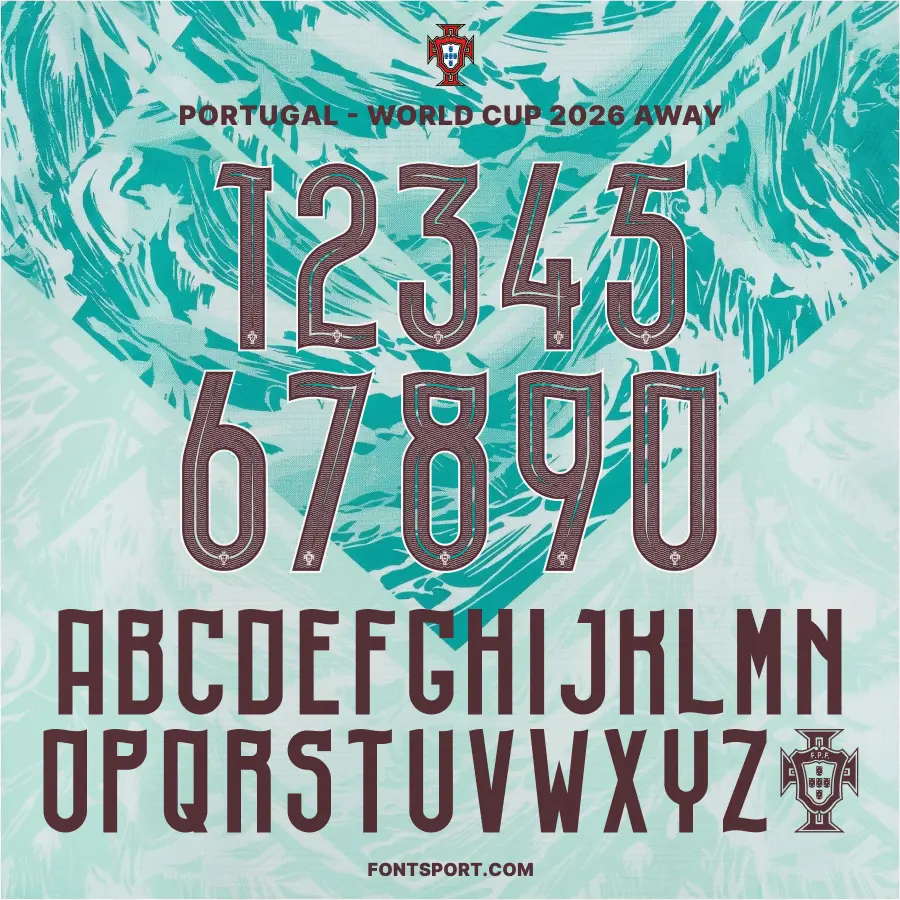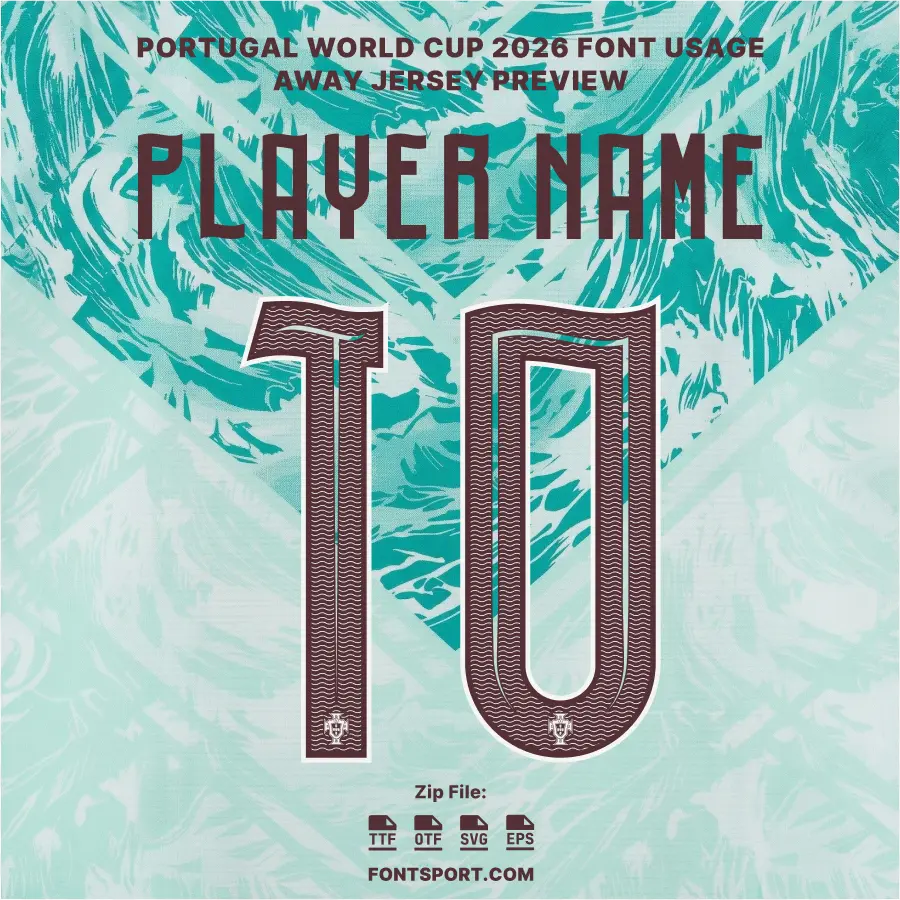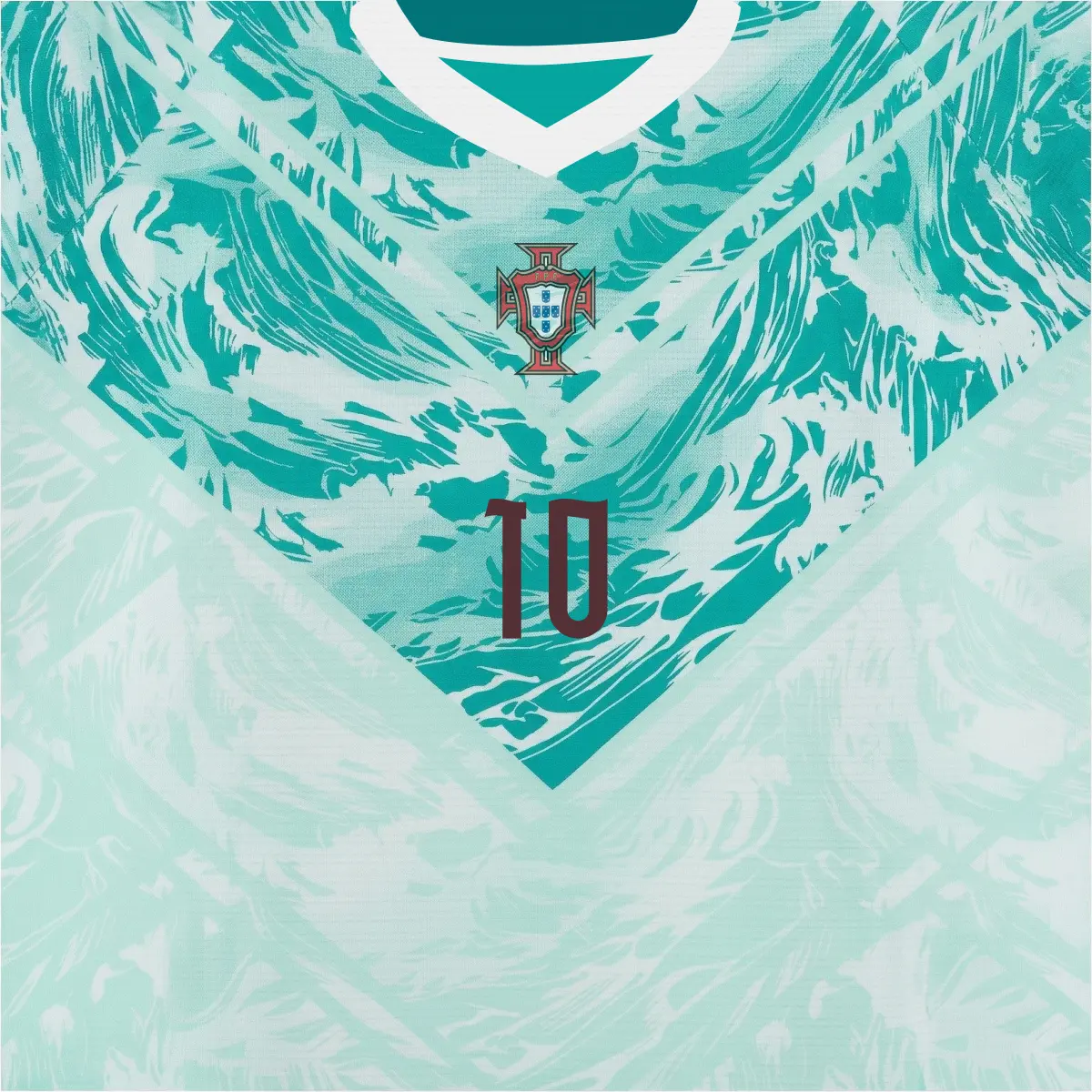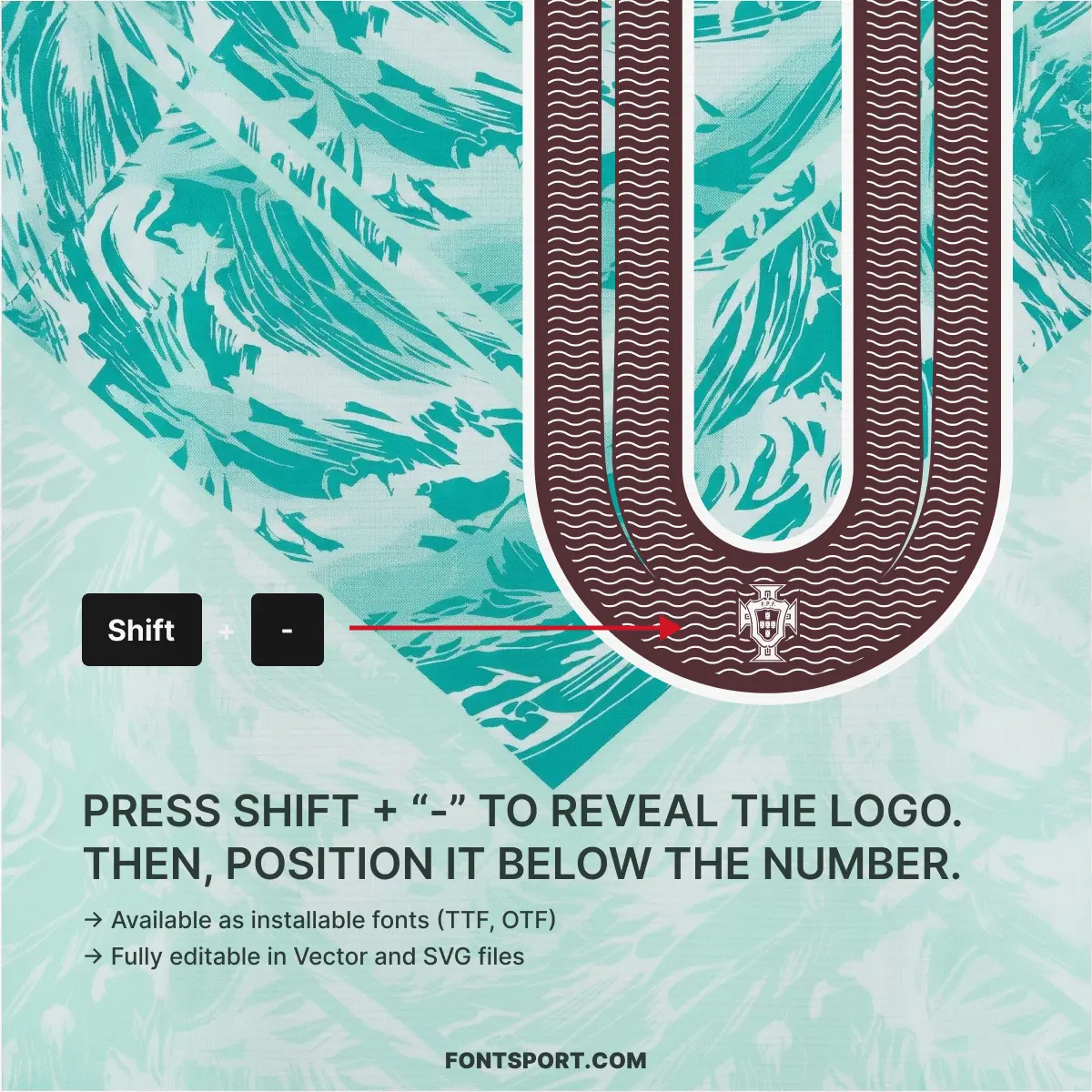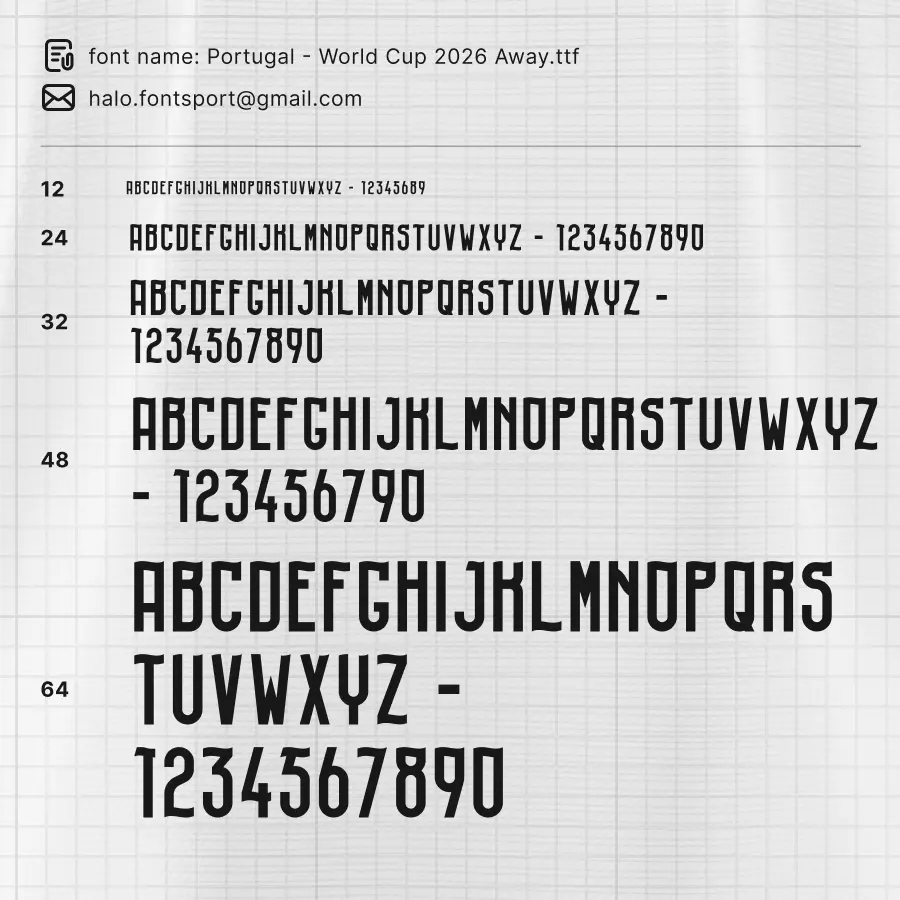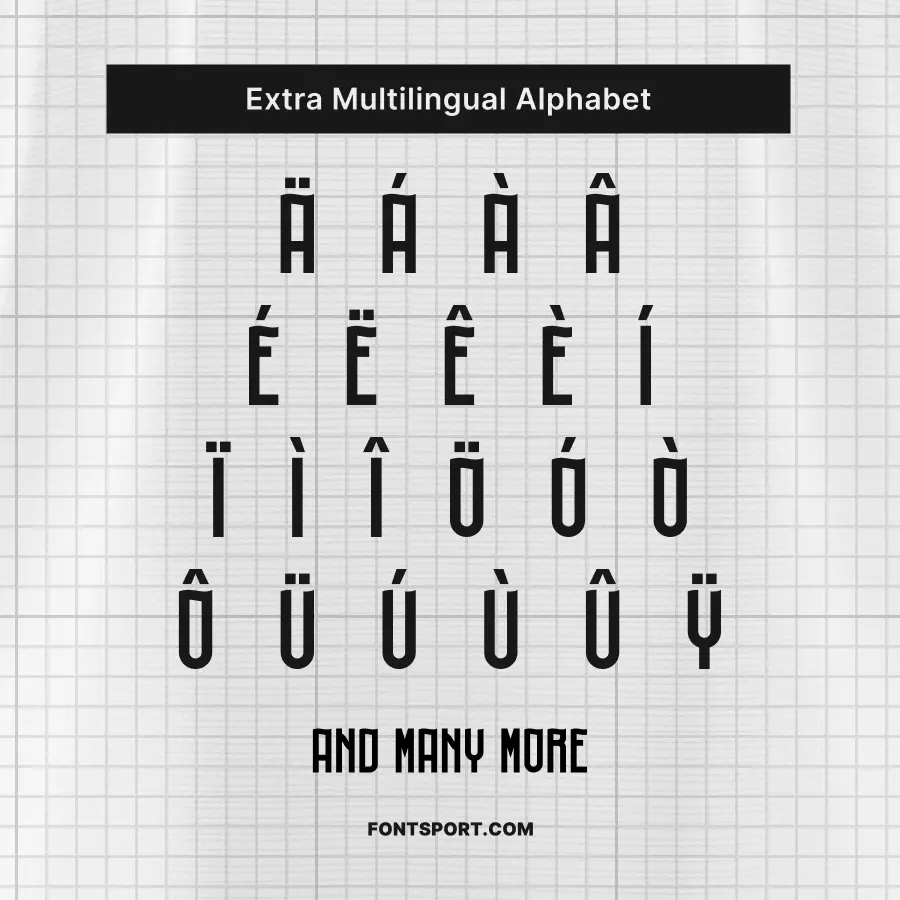
Portugal World Cup Away 2026 Font Kit – Football Typeface
The Portugal World Cup Away 2026 Font Kit marks a bold new era in Portuguese football as the nation transitions to its landmark partnership with PUMA. This font captures the “unstoppable spirit” of a team ready to make waves on the world stage, featuring a modern, sleek aesthetic that complements the team’s new maritime identity. Designed for elite international performance, this typeface will be a defining feature of the Seleção as they seek to uphold their strong football tradition in North America.
Complete A–Z Character Set: Bold, modern uppercase letters designed to be worn by the next generation of Portuguese stars on the world stage.
Full 0–9 Number Set: Optimized for high visibility, reflecting the “maritime roots” and fearless spirit of the 2026 collection.
Extra Multilingual Alphabet: Full support for accented characters (Ä, Á, È, Î, Ë, etc.), perfect for accurately rendering an international roster.
Integrated Federation Logo: An authentic touch that allows you to reveal a Portugal-style logo within the typography by writing normally or using a simple keyboard shortcut.
This bundle is ideal for creating personalized football kits, striking match-day posters, or unique lifestyle apparel that celebrates the “hunger for glory” of the Portuguese people.
This font kit is built for designers who want to bridge the gap between historic tradition and contemporary style:
Maritime-Inspired Design: The typography is part of a larger collection that pays homage to Portugal’s seafaring heritage and deep connection with the ocean.
PUMA Era Debut: This is the first football font from the new PUMA x Portugal partnership, introducing a fresh visual language for the 2026 cycle.
Optimized for Performance: An ideal font for jersey customization, team branding, and broadcast-style match graphics.
Versatile Design Asset: Use it as a sport font for everything from social media banners to physical print-on-demand products.